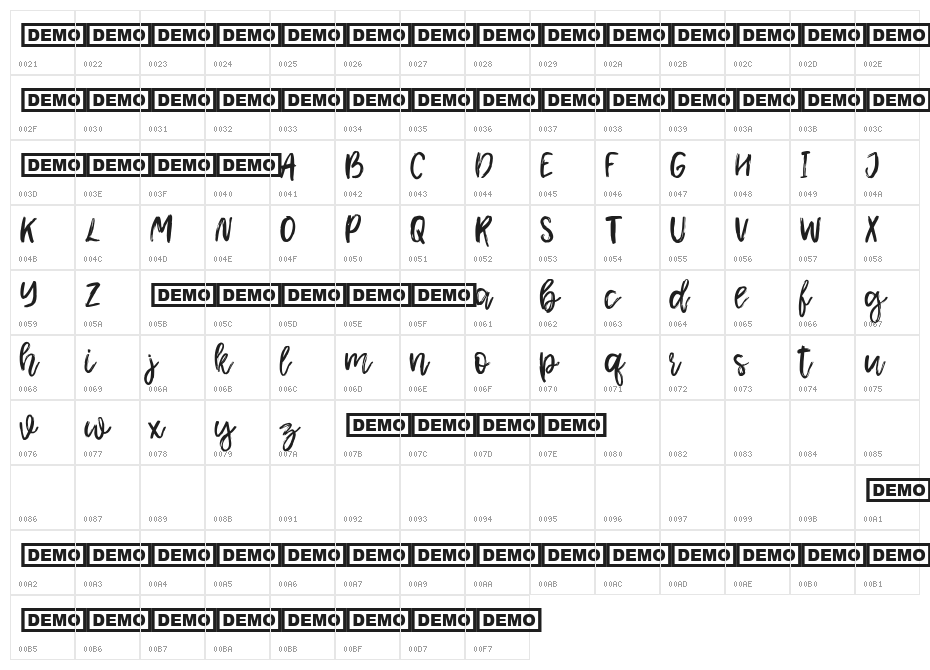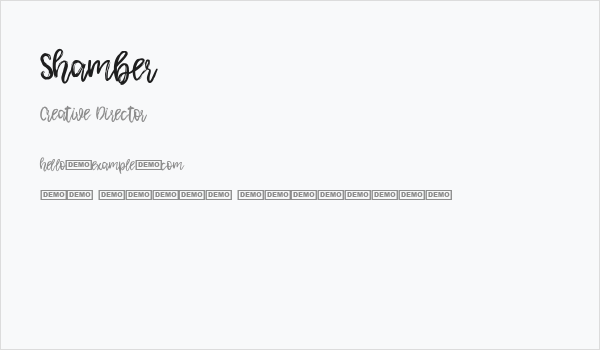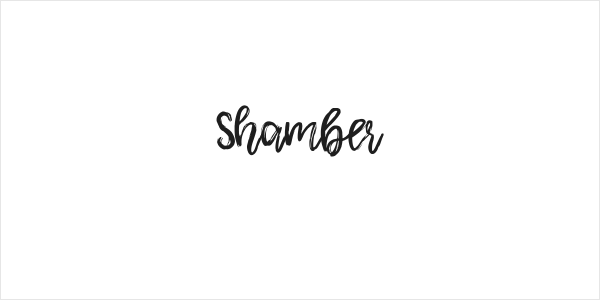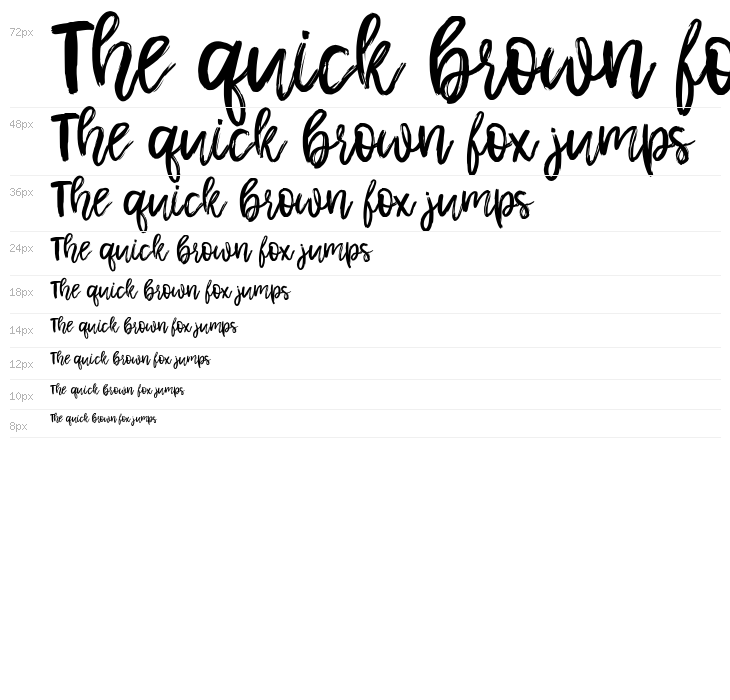
Shamber Font
Shamber Description
This font exudes a bold and expressive style, characterized by its brush-like strokes and dynamic flow. The uppercase letters are robust and impactful, while the lowercase letters maintain a fluid and cursive quality. The overall appearance is energetic and artistic, making it suitable for creative and eye-catching designs. The strokes vary in thickness, adding a sense of movement and depth to the text. This font is perfect for projects that require a personal touch or a handcrafted feel.
| Proposed Projects | Ideal for branding, posters, invitations, and artistic projects that require a personal and expressive touch. |